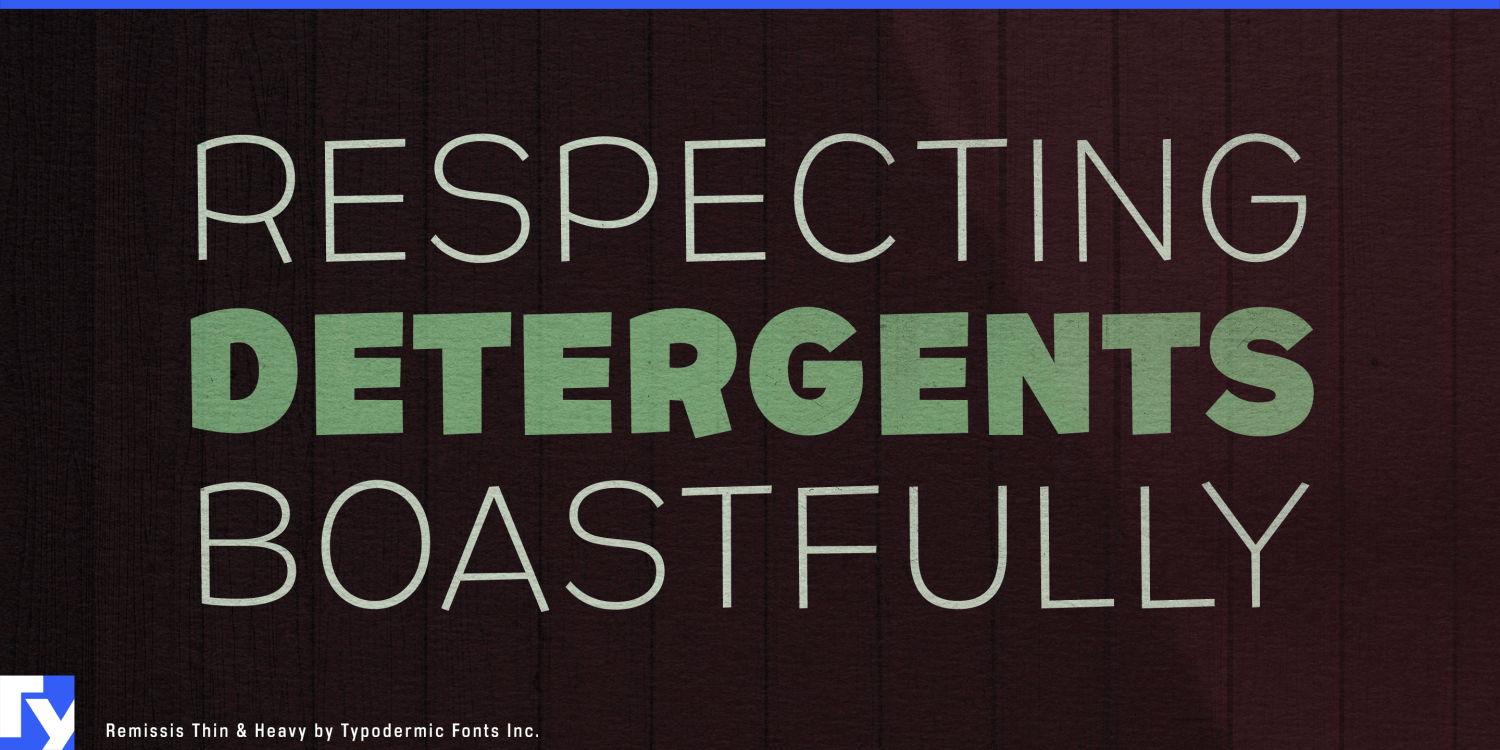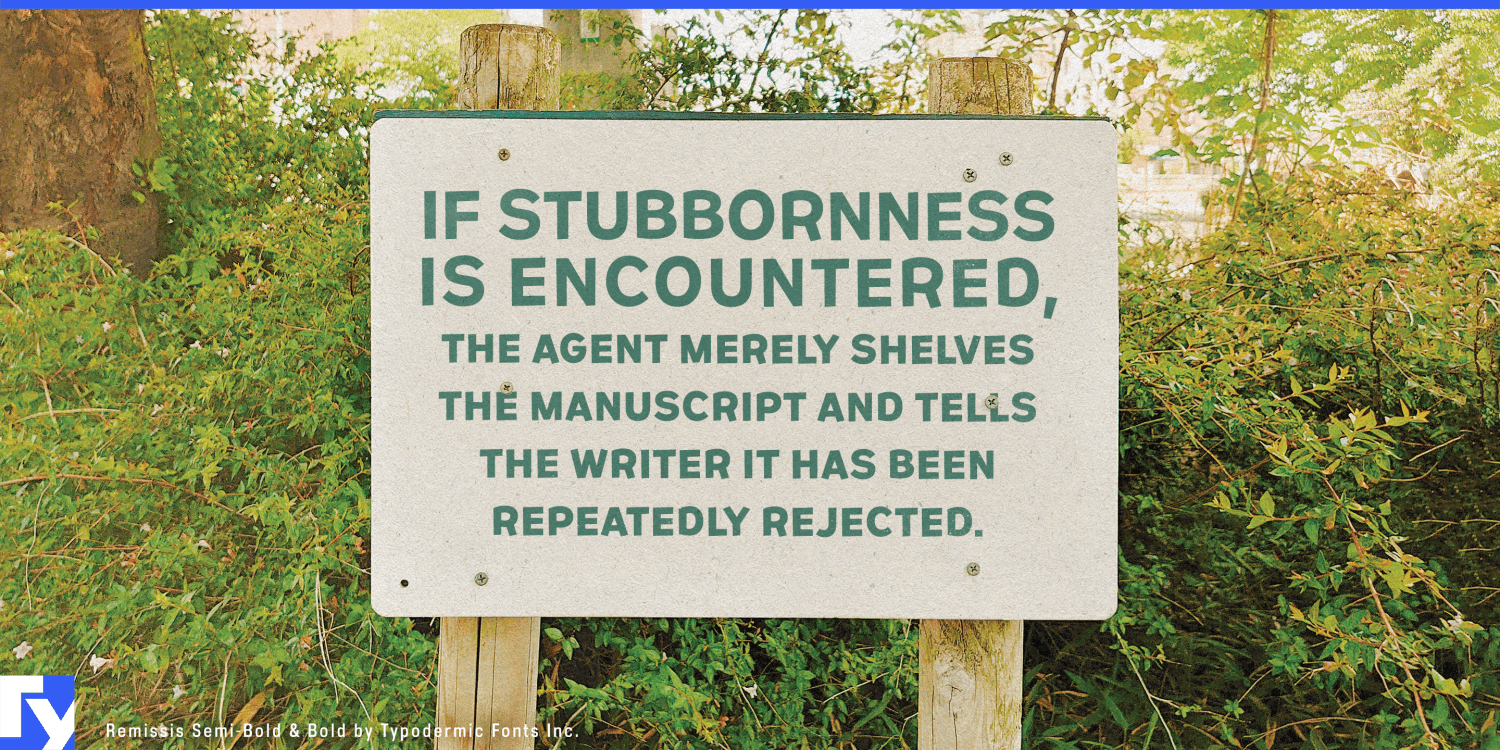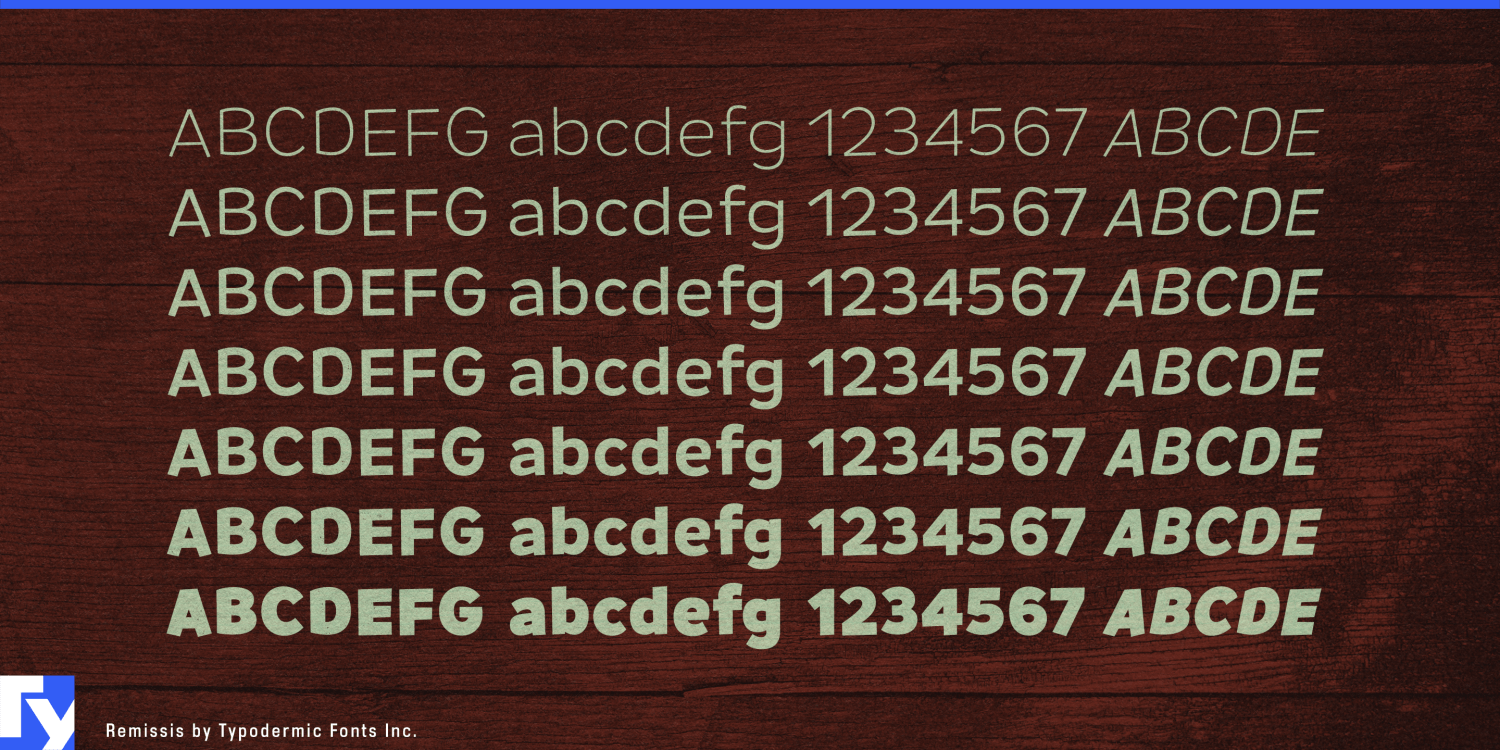
About Remissis
Introducing Remissis, a sans-serif typeface that deftly balances organic charm with professional poise. Its off-grid letterforms exude a natural, hand-crafted feel without veering into whimsy—striking that elusive sweet spot between approachability…